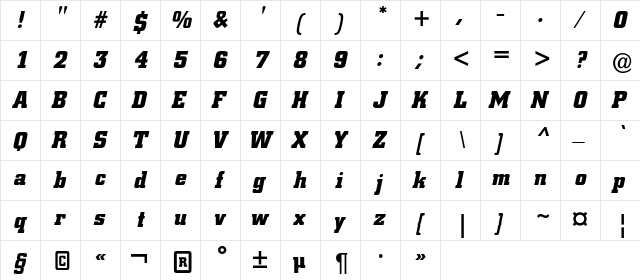
a_CityNova BoldItalic
Design Context for a_CityNova Typeface
a_CityNova takes a measured approach to typography — its balanced proportions and neutral character make it a reliable workhorse for both digital and print work. The slanted form adds forward momentum and visual energy. Its bold stroke weight gives it real presence on the page.
Pro Tip: Use a_CityNova for emphasis, pull quotes, and subheadings where its slanted energy can add rhythm to the layout.